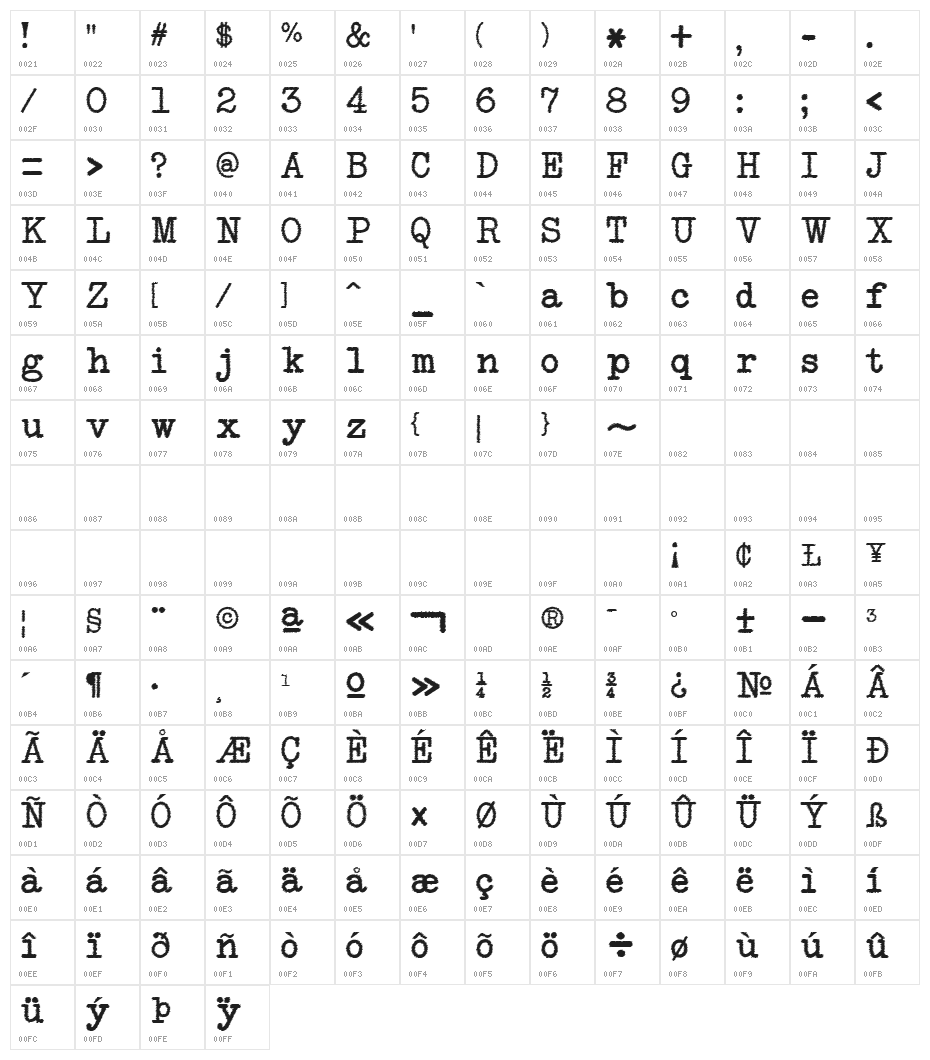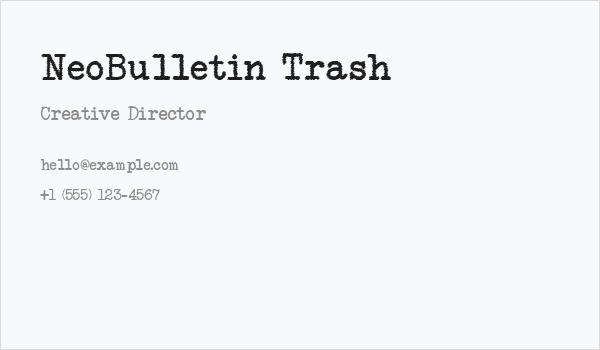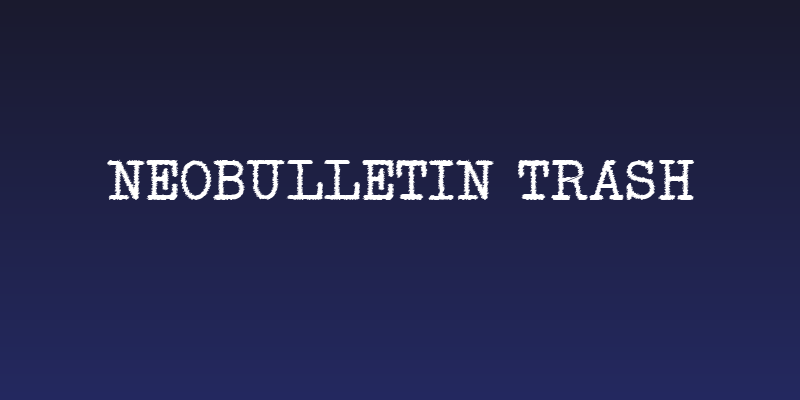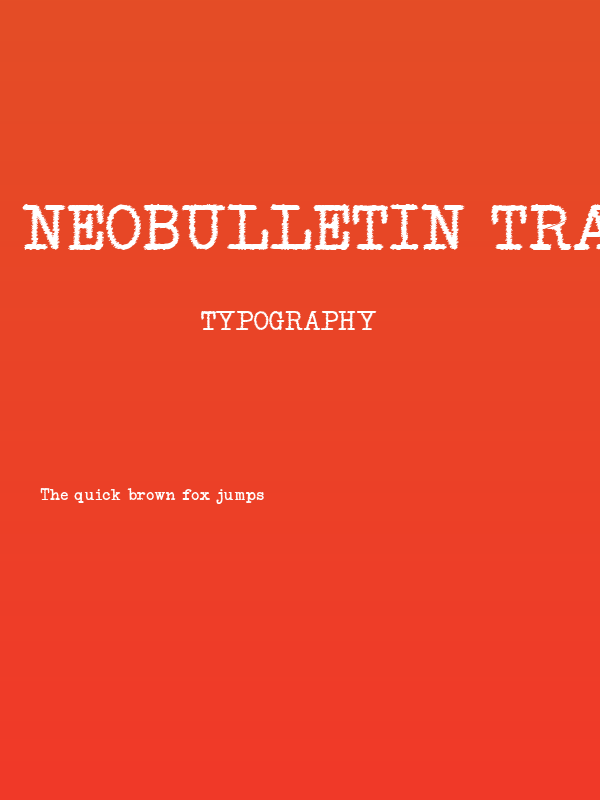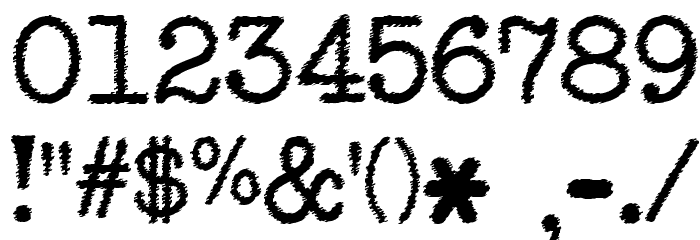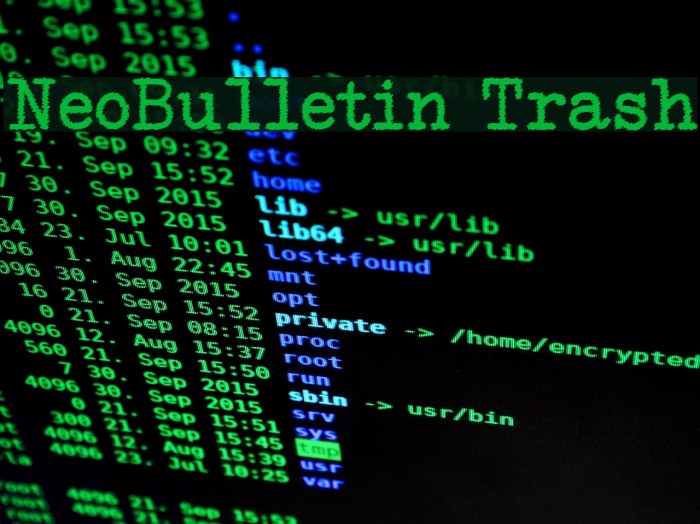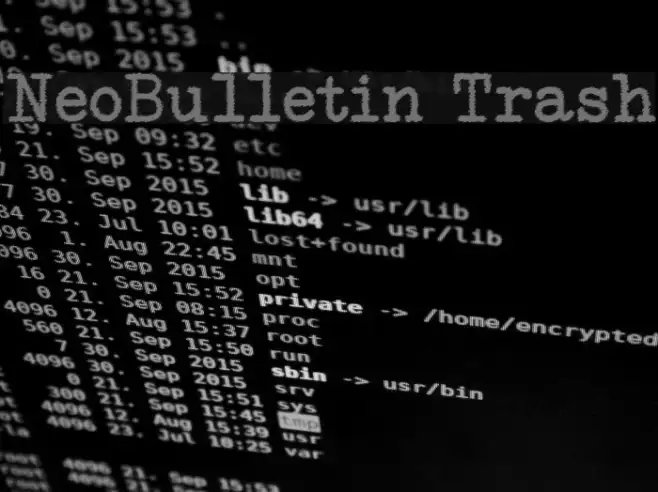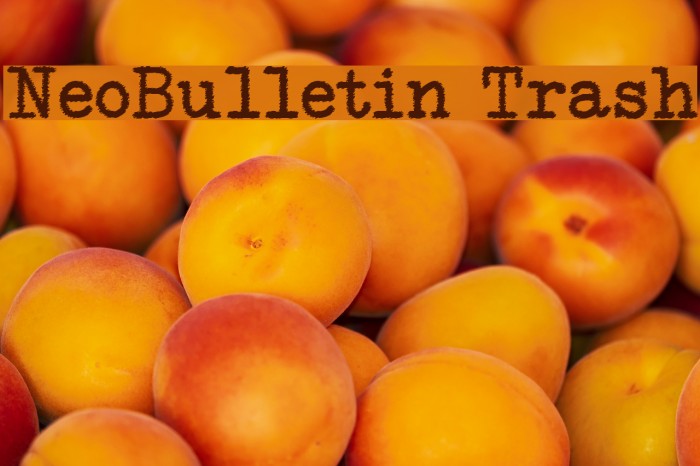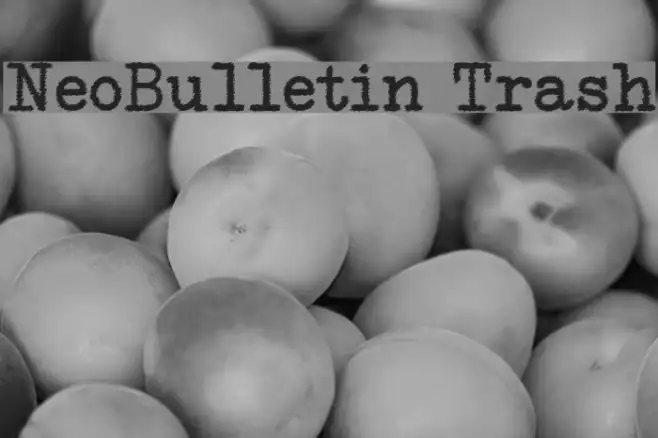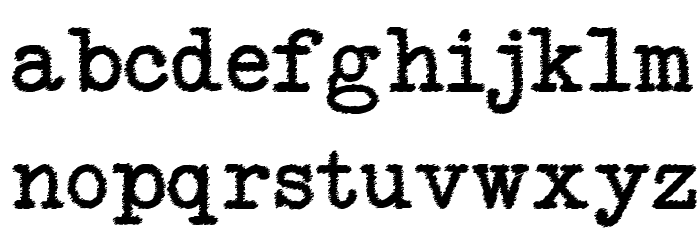
NeoBulletin Trash Font
NeoBulletin Trash Description
This font features a bold, textured appearance reminiscent of typewriter or vintage printing styles. The characters have a rough, distressed look, adding a sense of authenticity and nostalgia. The uppercase and lowercase letters maintain a consistent design, with slightly exaggerated serifs and a uniform stroke width that enhances readability. Numbers and special characters follow the same stylistic cues, ensuring a cohesive look across all text elements. The font's unique texture gives it a handcrafted feel, making it ideal for projects that require a touch of retro charm.